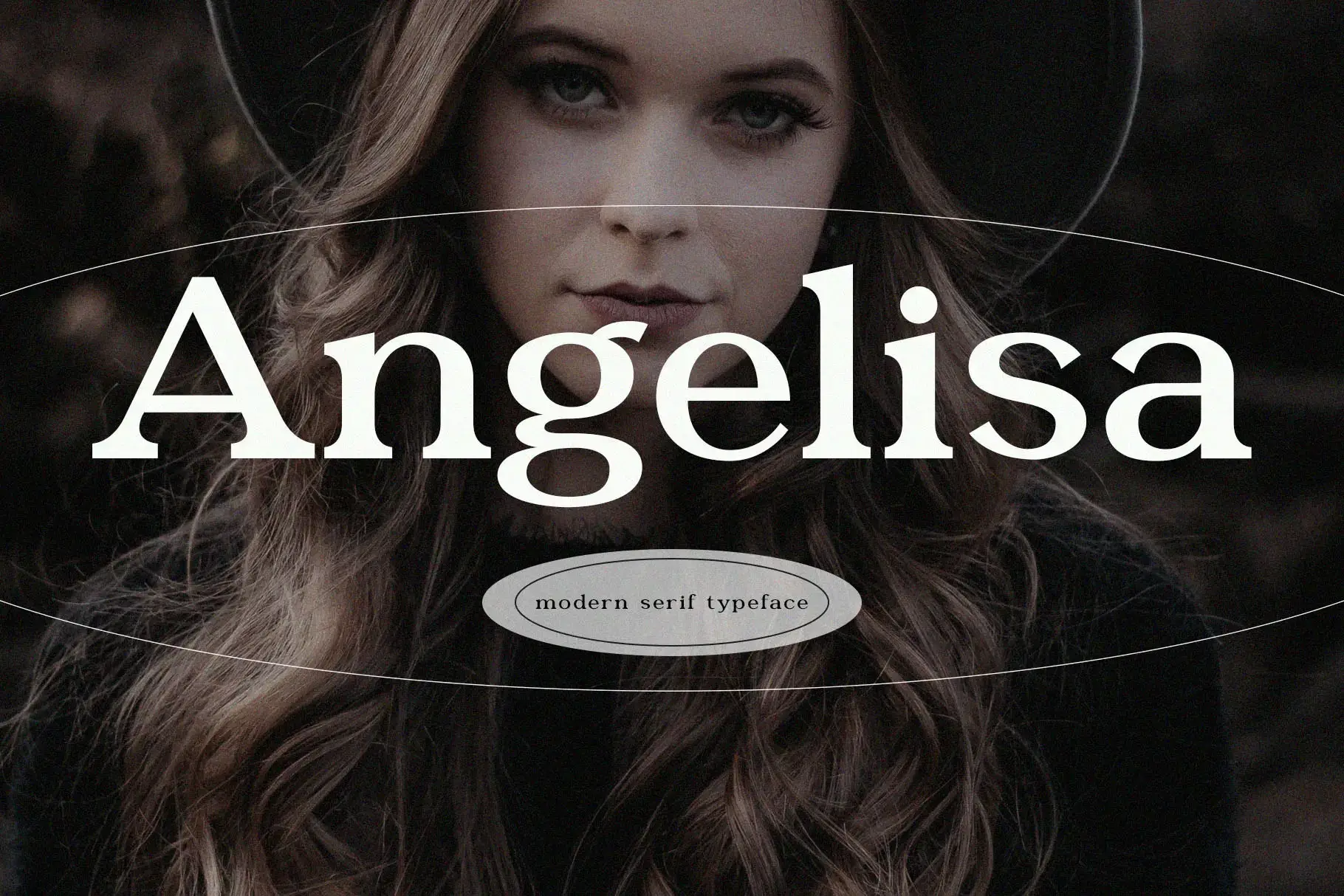
Bold Serif Font - Angelisa
Angelisa
A bold serif font designed for versatility and sophistication. With its elegant yet modern style, Angelisa is perfect for a variety of design applications, including websites, logos, magazines, and social media posts. Whether you are crafting personal branding materials, advertising campaigns, or editorial content, Angelisa adds a timeless touch to your projects, elevating their visual appeal with its refined and contemporary aesthetic.
For those seeking a combination of elegance, style, and modernity in their designs, Angelisa is meticulously crafted to fulfill your creative vision.
• Immaculately Crafted Letters
Angelisa is a bold serif font that combines elegance and modern style. Perfect for websites, logos, and social media, it adds sophistication and class to any design project.